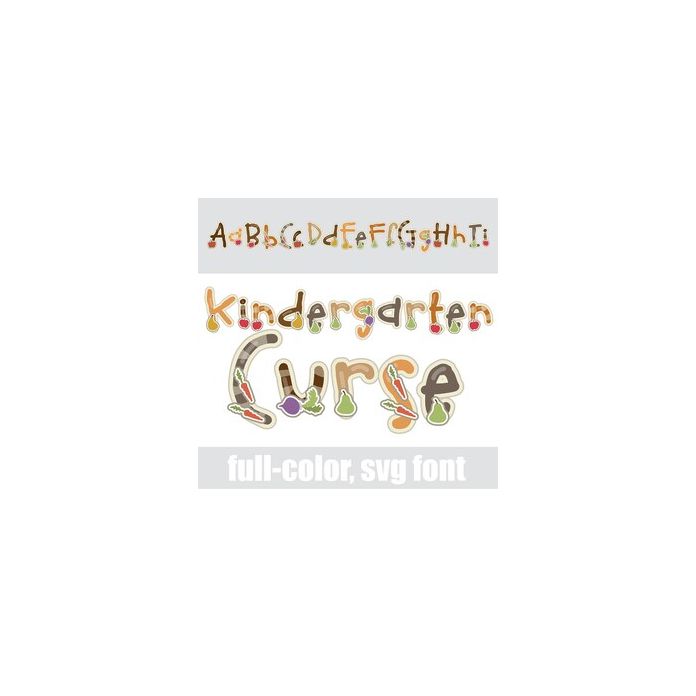
This full-color font features a very youthful font in an autumn color palette with the contents of a Thanksgiving cornucopia. There is an alt case w/ additional colors you can access through your system or Silhouette's glyph map.